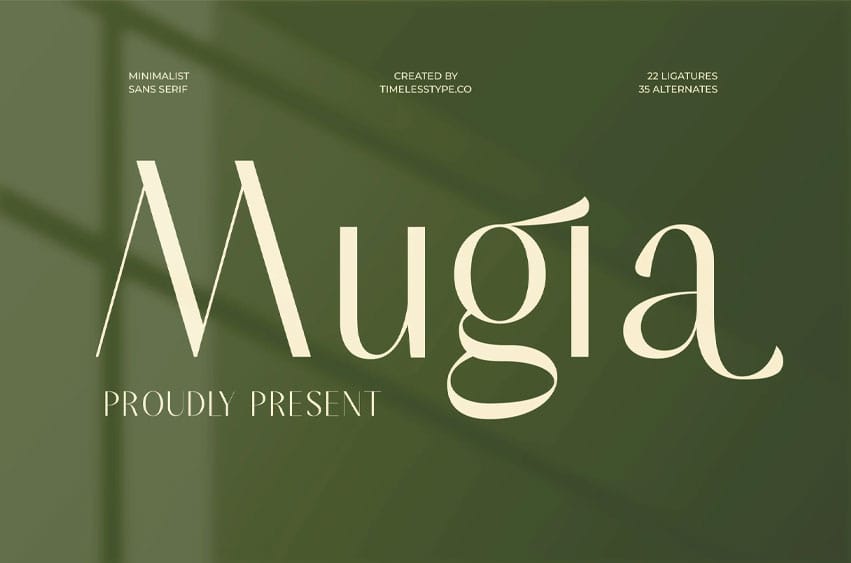
Mugia Font is a minimalist sans serif display font with refined curves, subtle contrast, and a soft modern elegance. Its clean structure and artistic strokes create a graceful contemporary look, making it ideal for branding, editorial layouts, packaging, social media design, logos, and premium visual identity projects. The font delivers a calm, sophisticated, and airy aesthetic—perfect for designers who want understated luxury with a modern twist.
With 22 ligatures, 35 alternates, and a sleek sans-serif construction, Mugia provides extensive creative flexibility for crafting stylized titles, expressive logos, elegant monograms, and polished typographic compositions. Its slender proportions, smooth terminals, and tasteful simplicity make it a standout choice for high-end, minimalist design work. FEATURE :